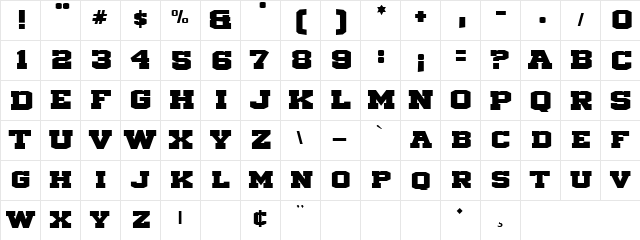
michigan 2 Regular Font Preview
michigan 2 Regular
Design Context for michigan 2 Typeface
michigan 2 offers clean, dependable letterforms without strong stylistic allegiance, making it a practical choice for designers who need flexibility.